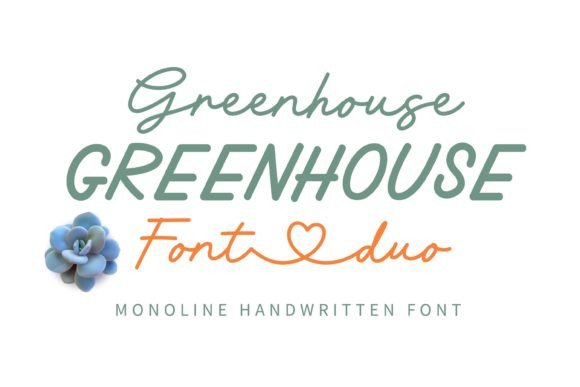
Introducing Greenhouse Font: The Unforgettable Duo-Styled Handwritten Font for Every Occasion
Prepare to be captivated by Greenhouse Font, a carefully crafted duo-styled handwritten font that weaves an intricate tapestry of heartwarming charm and delicate finesse. With Greenhouse at your fingertips, every creative idea transforms into a captivating masterpiece, a testament to your unique artistic vision.
Journey through a world of boundless possibilities, where Greenhouse Font becomes your ultimate creative companion. Enchant Christmas cards with its festive allure, bring wedding designs to life with its romantic elegance, and craft local signs that resonate with a personal touch. Harness the power of Greenhouse to elevate branding and logos, creating a lasting impression that speaks volumes about your brand's essence. Embrace the beauty of photography projects with a font that complements every visual story, and discover endless opportunities in creating heartfelt birthday cards that leave a lasting impression.
Beyond its versatility, Greenhouse Font possesses an inherent charm that captivates the senses. Its meticulously crafted lines dance with grace and fluidity, evoking a sense of timeless elegance that transcends trends. Each letter is a work of art, carefully shaped and connected with impeccable precision, ensuring that your words command attention and make a lasting impact.
With Greenhouse Font, you unlock a world of creative possibilities, transforming ordinary designs into extraordinary masterpieces. It's the perfect font for adding a personal touch to any project, whether it's a heartfelt letter, a stunning poster, or an eye-catching social media post. Let Greenhouse be your creative muse, guiding you to new heights of brilliance.
Don't settle for ordinary fonts that fade into the background. Embrace the allure of Greenhouse Font, a creative force that will elevate your designs and leave an unforgettable impression on your audience. Immerse yourself in the world of Greenhouse Font and embark on a creative journey like never before.